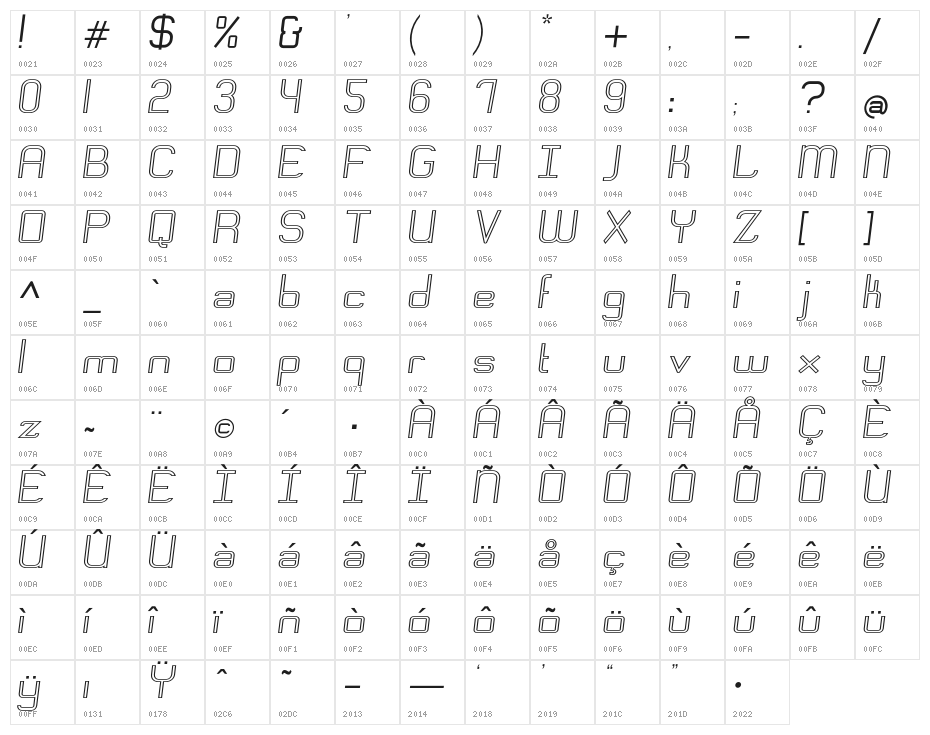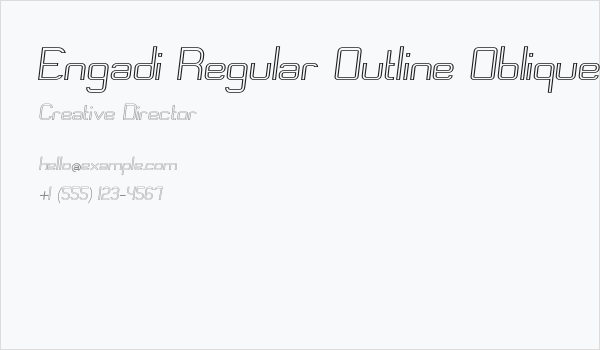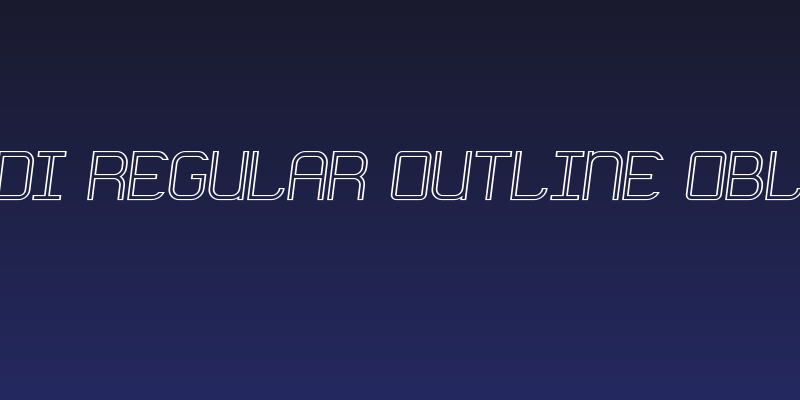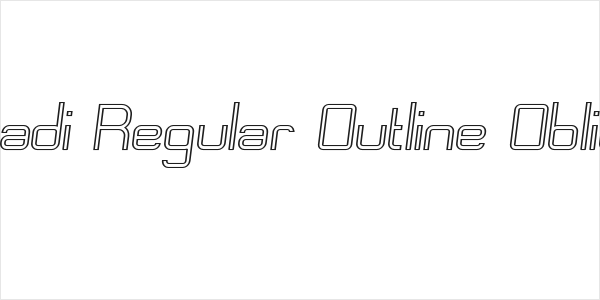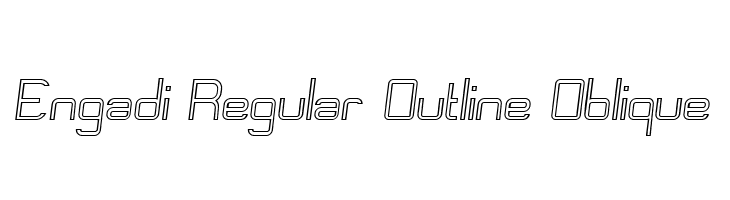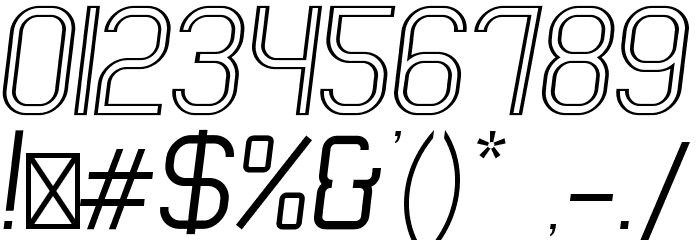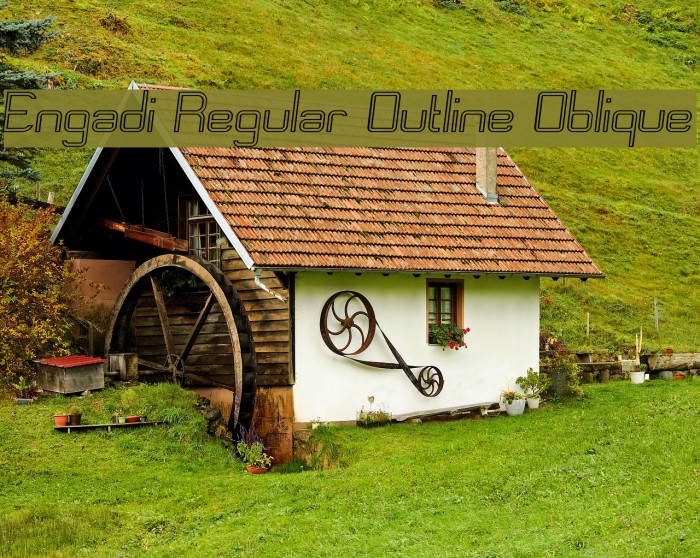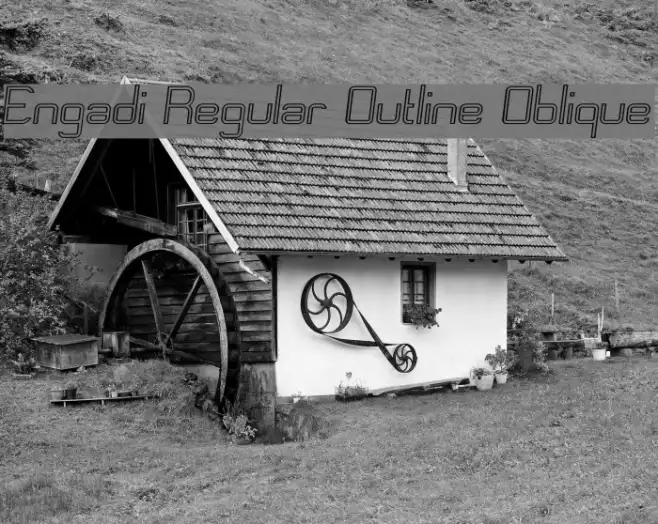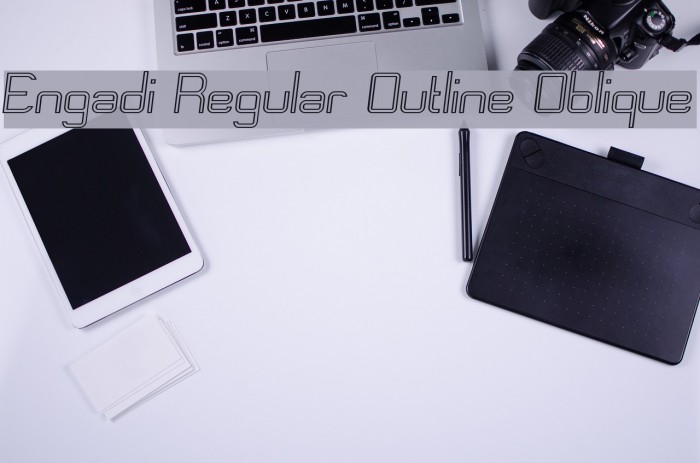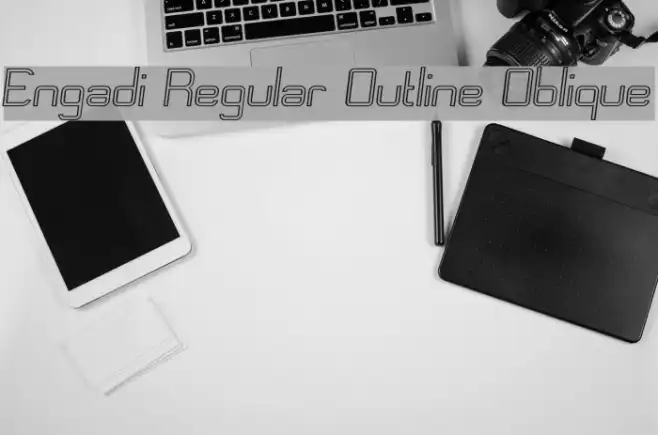
Engadi Regular Outline Oblique Font
Engadi Regular Outline Oblique Description
This font features a modern and sleek outline style with an oblique slant, giving it a dynamic and futuristic appearance. The characters are constructed with a consistent line weight, creating a uniform and cohesive look. The uppercase and lowercase letters maintain a geometric structure, with rounded edges that soften the overall aesthetic. The numerals and special characters are designed to match the letterforms, ensuring visual harmony across all elements. This font's outline style allows for creative layering and color usage, making it versatile for various design applications.
| Proposed Projects | Ideal for futuristic branding, tech-related projects, modern posters, and digital interfaces. |